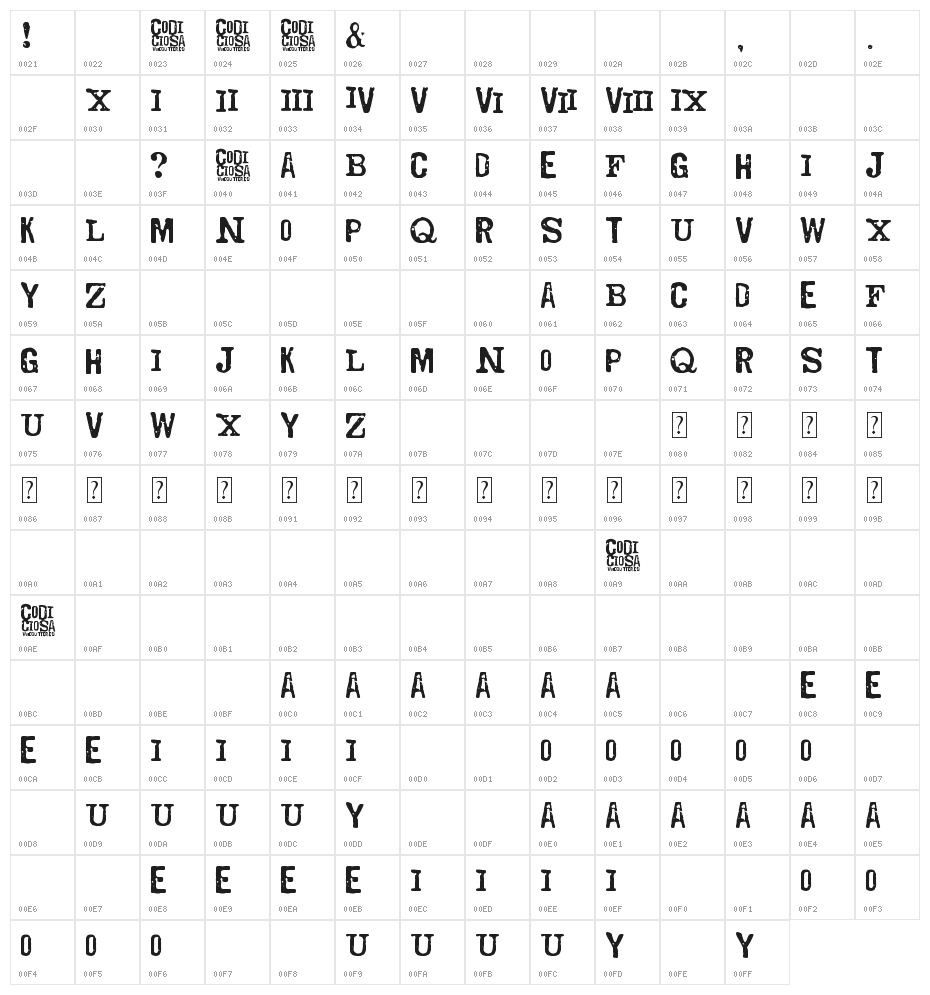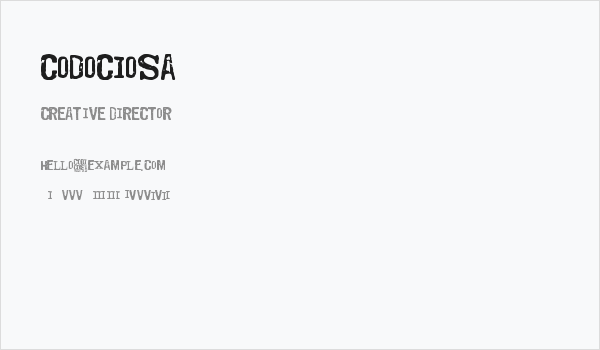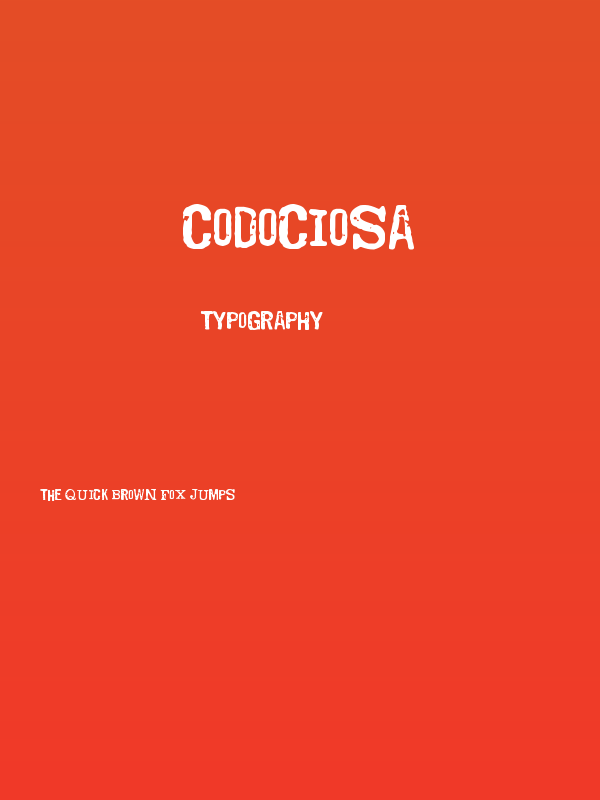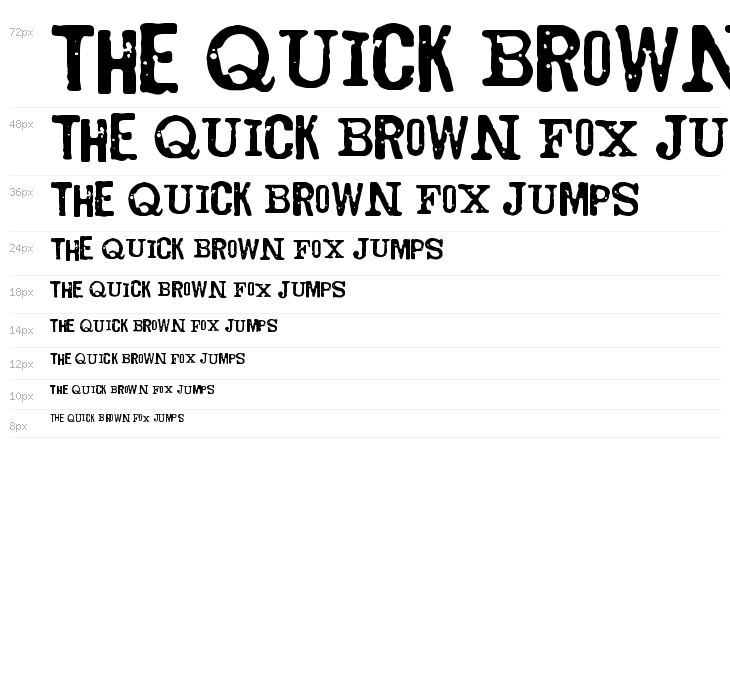
Codociosa Font
Codociosa Description
This font features a bold, distressed style with a vintage and rugged appearance. The characters have a textured, worn look, reminiscent of old woodcuts or letterpress prints. The uppercase letters are prominent and bold, while the lowercase letters maintain a consistent style. The numbers and special characters follow the same distressed aesthetic, adding to the overall cohesive look. This font is ideal for projects that require a strong, eye-catching design with a touch of nostalgia.
CODOCIOSA UPPERCASE
CODOCIOSA LOWERCASE
CODOCIOSA OTHER CHARS
| Proposed Projects | Perfect for posters, logos, branding, and any design needing a vintage or rustic touch. |